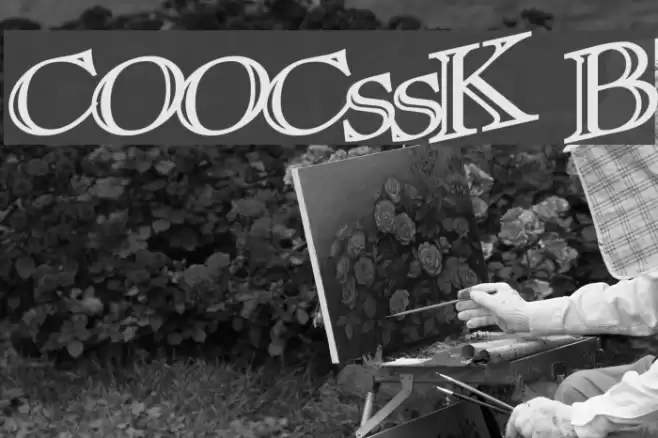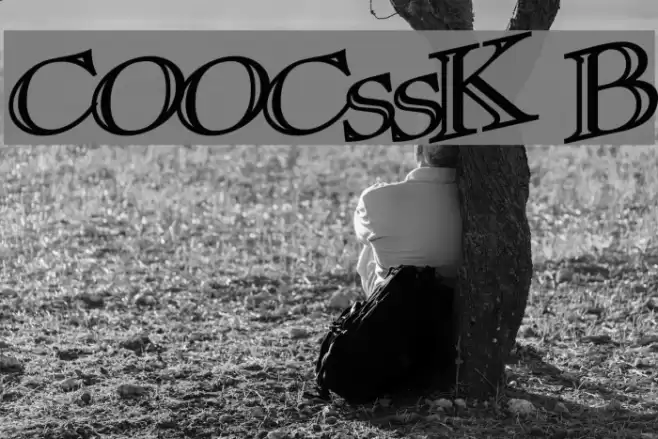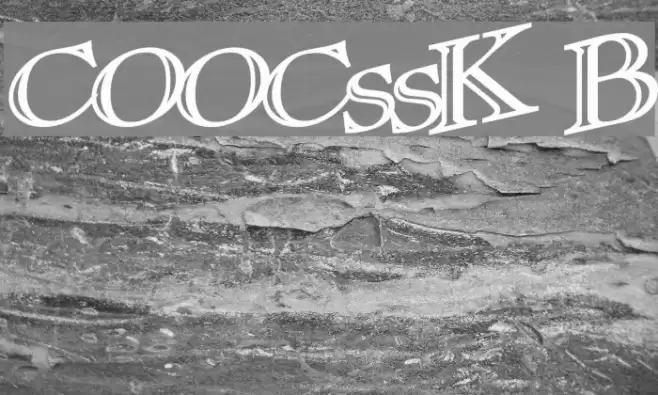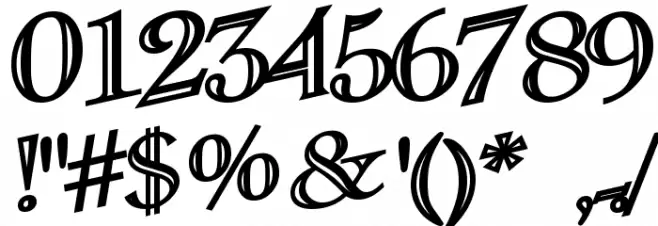
CasOpenOutaControlSSK Bold Font
CasOpenOutaControlSSK Bold Description
This font features a bold and dynamic style with a distinct slant, giving it a sense of movement and energy. The characters are outlined with a double line, creating a unique and eye-catching effect. The uppercase letters are tall and narrow, while the lowercase letters maintain a consistent height, adding to the font's cohesive appearance. Numbers and special characters follow the same bold and outlined style, ensuring uniformity across all elements. The font's playful and decorative nature makes it suitable for projects that require a strong visual impact.
A bold, slanted font with outlined characters, perfect for dynamic and decorative designs from Uncategorized fonts.